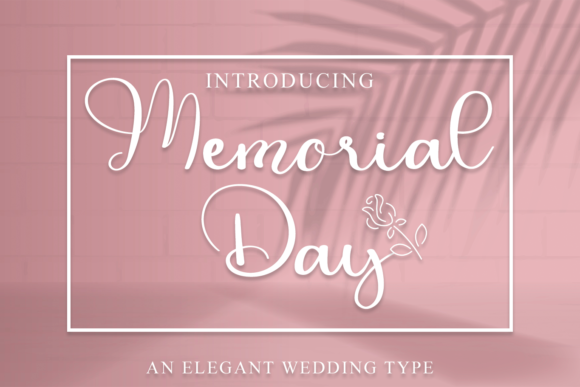
Welcome to the world of Memorial Day Font, the enchanting script font family that spells charm, elegance, and sophistication in every letter. Designed by el hotcig, this gorgeous font feels like a warm embrace, adding a touch of personalized magic to your digital creations.
Memorial Day Font is the perfect choice for those seeking a font that exudes timeless beauty with a sprinkle of contemporary style. Its fluid strokes and graceful curves evoke a sense of nostalgia, while its clean lines and modern aesthetic keep it feeling fresh and relevant. Whether you're a seasoned designer or a creative enthusiast, this font is an absolute delight to work with.
Imagine your website buttons adorned with the Memorial Day Font. The harmonious curves and bold strokes are sure to captivate visitors, inviting them to explore your digital haven. The font's exceptional legibility, even at small sizes, ensures that your message is conveyed with crystal clarity, leaving a lasting impression on your audience.
For those crafting wedding invitations or thank-you cards, Memorial Day Font will add an ethereal touch of romance. Your words of love and gratitude will dance across the page, enveloped in the font's elegant embrace. Your recipients will be enchanted by the delicate beauty of the script, cherishing your heartfelt messages for years to come.
Quotes and greeting cards take on a new life when adorned with the Memorial Day Font. Its graceful lines and timeless charm breathe life into your words, transforming them into treasured keepsakes. Your words become art, resonating with your loved ones and leaving an indelible mark on their hearts.
Logos and business cards adorned with the Memorial Day Font exude professionalism and sophistication. The font's elegant curves and confident strokes convey a sense of stability and trustworthiness, making it an ideal choice for businesses looking to establish a strong brand identity. Your customers will be drawn to the visual appeal and professionalism of your branding, setting you apart from the competition.
Every design that yearns for a handwritten touch finds its perfect companion in the Memorial Day Font. Its charming imperfections and natural flow add a personal touch to any project. Whether it's a heartfelt letter, a stunning poster, or an eye-catching social media post, this font will elevate your designs to new heights.
With Memorial Day Font, your creative possibilities are endless. Its versatility and adaptability make it a true gem in the world of typography. From whimsical wedding invitations to sleek business cards, from heartfelt quotes to captivating website buttons, this font will leave a lasting impression on you and your audience.